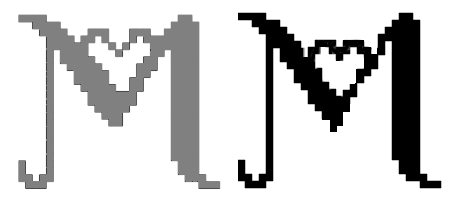
• I like this font and added some glyphs I wanted to use, hoping they are in the spirit of the original.
@ CMunk: I added numbers, some diacritical marks, the ?, ', ! and * Hope you can make use of the ideas.
Lovely letterforms. That 4 is quite something! And I would never have thought to put a loop on the exclamation mark. It gives it a natural, handwritten flow.
Added Æ, Œ and @
Checking some fonts for "possibly missing attractive glyphs" I noticed that the heart on this clone П didn't transfer. Why did that happen, is it a "normal" event? I'll check every published clone for this type of "mis-clone"
If you clone a font, it clones it with the same data as the original. If the original designer makes changes, it won't transfer to the cloned font(s), as far as I know…
@Aeolien - Unless it's truly a glitch or bug in the "cloning process," BWM might be onto something: your clone is from Jan 15, 2017, but @Christian Munk (CMunk)'s last edit was a day later, on Jan 16, 2017.  Could that glyph have been added after you cloned it?
@ Goatmeal: yes you're right, I must have cloned 'too early'. @ BWM thank you, I hadn't thought of that solution at all!
In this font's original version by C.Munk someone commented on the heart in the "M". I did an alternative "M" with the heart at the top, on the "m" space (the real LC is not done yet).
Dear Aeolien: Sorry, I've dared to make a version of your new M using the heart that appears in the other letters, hoping you like it. Greetings.
@ elmo: yes, and Thank You; your "M" is definitely more in keeping with the other glyphs as its heart has the same size :) I'll replace mine with yours *nods*